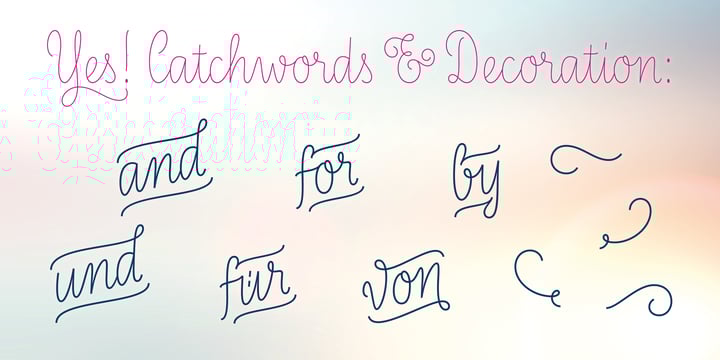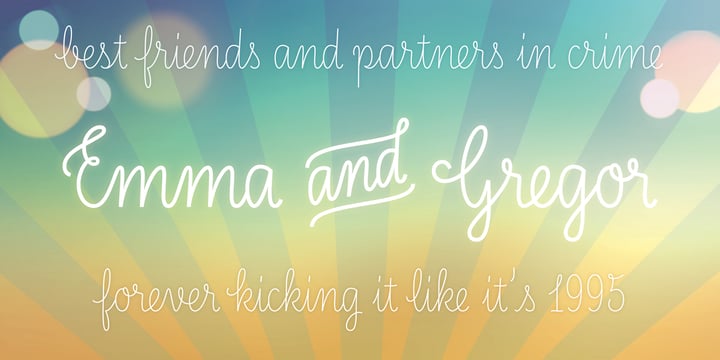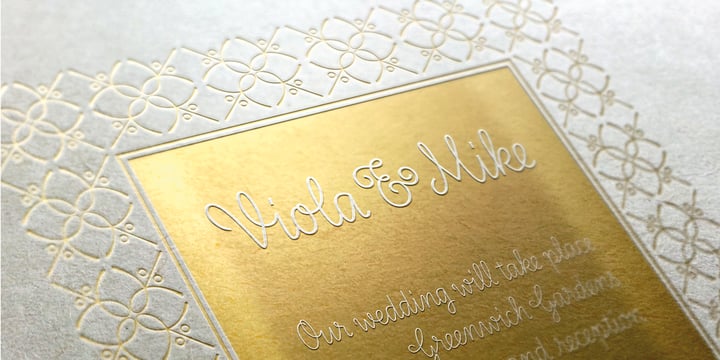
LiebeLotte™
La familia tipográfica LiebeLotte fue diseñada por Ulrike Rausch y publicada por LiebeFonts. LiebeLotte contiene 6 estilos y opciones de paquete familiar.
Forget that hipster coolness for a minute and design something cute and charming with LiebeLotte! Go ahead and make beautiful things with her: birthday cards, wedding invitations, love letters, new signage for your deli—so many things look sweeter when you use this well-crafted handwriting font. We’ve put all of our heart and soul into this typeface—it took us a whole year to draw, refine, and interconnect all these loopy letterforms. We hope it’s really hard to tell that this is a typeface at all—the perfect connections and many swash variations make it look like you actually sat down with a pen. A pretty good pen in fact. LiebeLotte comes with a state-of-the-art character set. She also sports a variety of ligatures and alternative forms, available through OpenType features. (Please make sure your software supports ligatures for the letter connections and OpenType if you wish to use the advanced features.) Advanced designers, please take a look at our best-sellers LiebeErika and LiebeKlara: the all-new LiebeLotte makes a great companion for these popular fonts. We do think you’ll have plenty of fun with this versatile package of loopy letters for letter lovers. Or lovely letters for loop lovers. And hey, you can absolutely use LiebeLotte to make happy hipster designs, too! Promise!
“Liebe” means “love” in German. “The name LiebeFonts is meaningful to me in more ways than one”, Ulrike Rausch said in her 2013 Creative Characters interview. “On one hand, my fonts obviously look ‘sweet’ — in other words, friendly and lovable. And of course the name also refers to my own love of fonts.” Ulrike’s skills are equal parts handicraft and digital savvy, and her fonts are as technically sophisticated as they are charming. “It is very important to me that my fonts serve a wide variety of languages so that they are suitable for professional typesetting,” she says. “I also invest a lot of time into sensibly grouped OpenType features like contextual and stylistic alternates as well as a wide range of ligatures and swashed letters.”